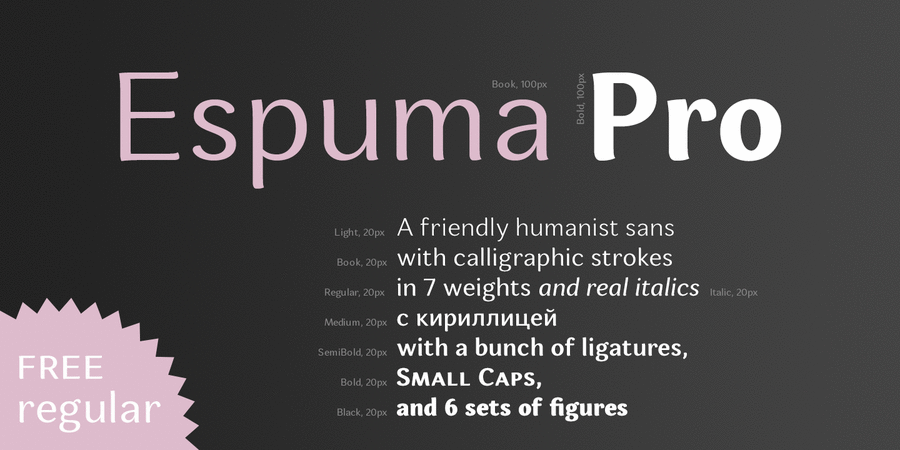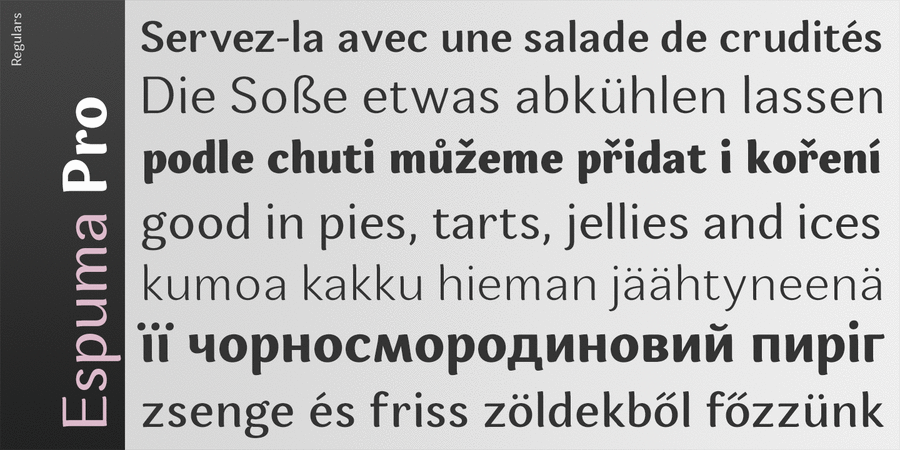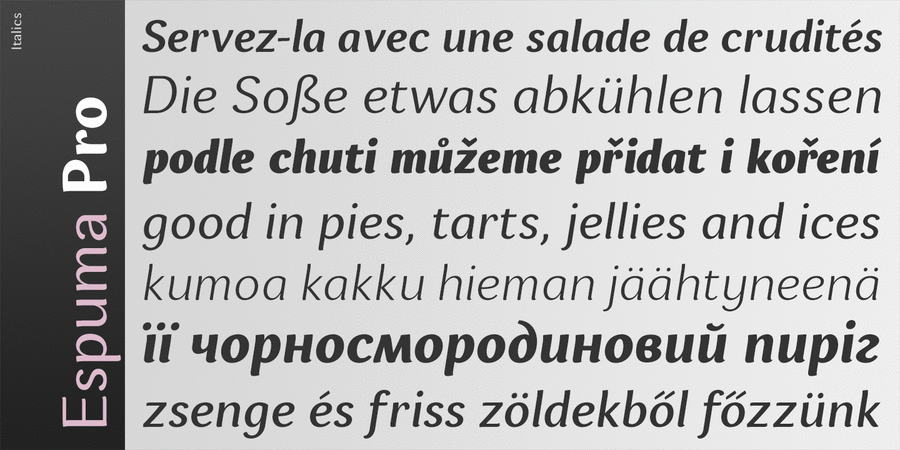
Espuma Pro is a soft and friendly humanist sans-serif font family with strong calligraphic aftertaste.
Presented in 7 weights, with true italics each, it features the traditionally rich language support, small caps, 6 sets of figures and a bunch of ligatures.
Its delicate flavor is suitable for brands that wish to communicate friendliness and openness. This typeface is especially good for FMCG and packaging, but it can be used virtually anywhere thanks to its extreme legibility. The typeface was designed and released by Andriy Konstantynov in Mint Type foundry in 2013.